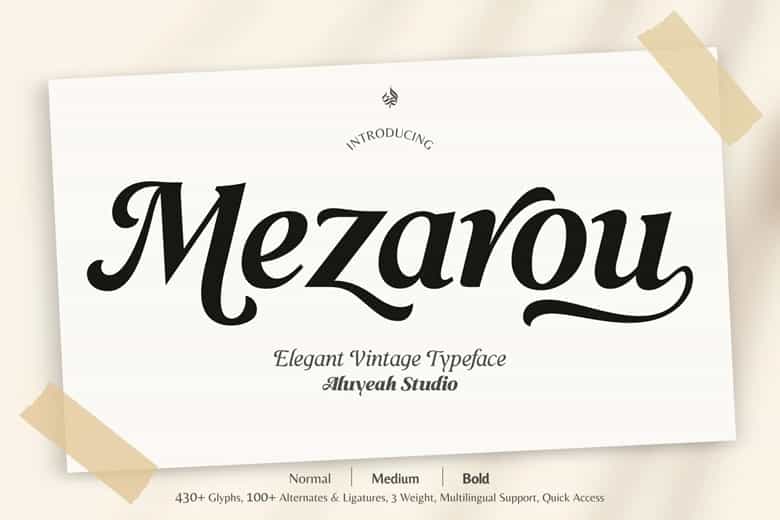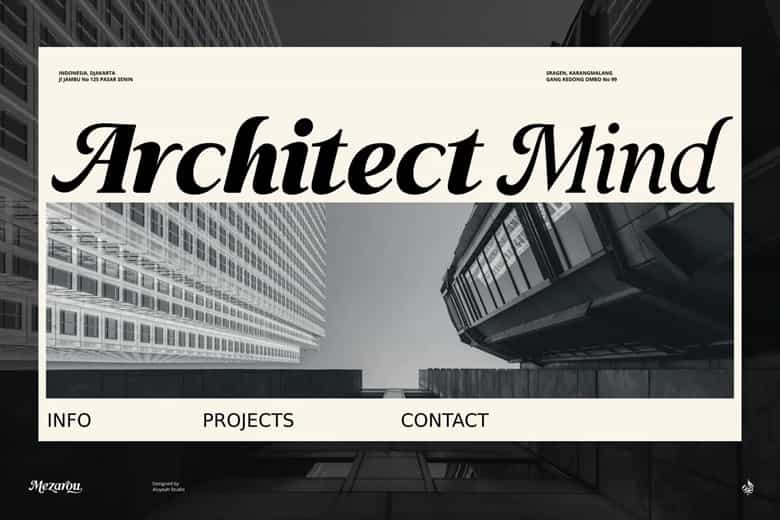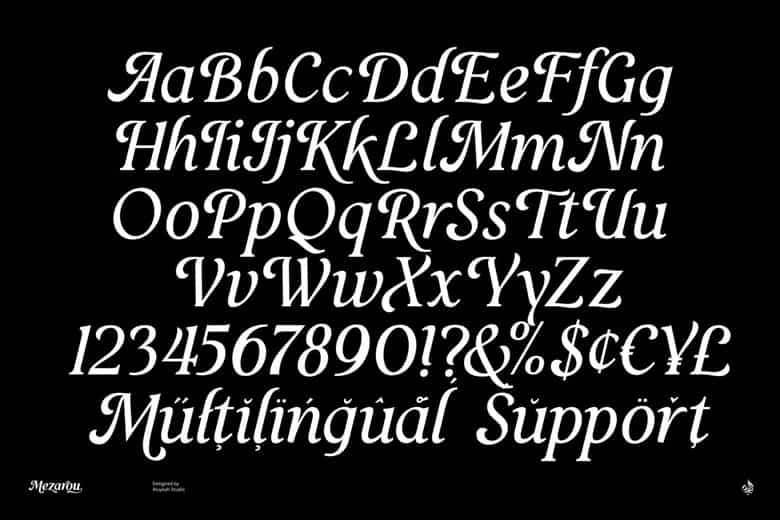
Mezarou is a vintage serif font with elegant atmosphere, suitable for your retro projects. Mezarou, comes with 100+ alternates & ligatures & gives you endless possibilities to create unique designs. The 3 different weights make it available further versatile.